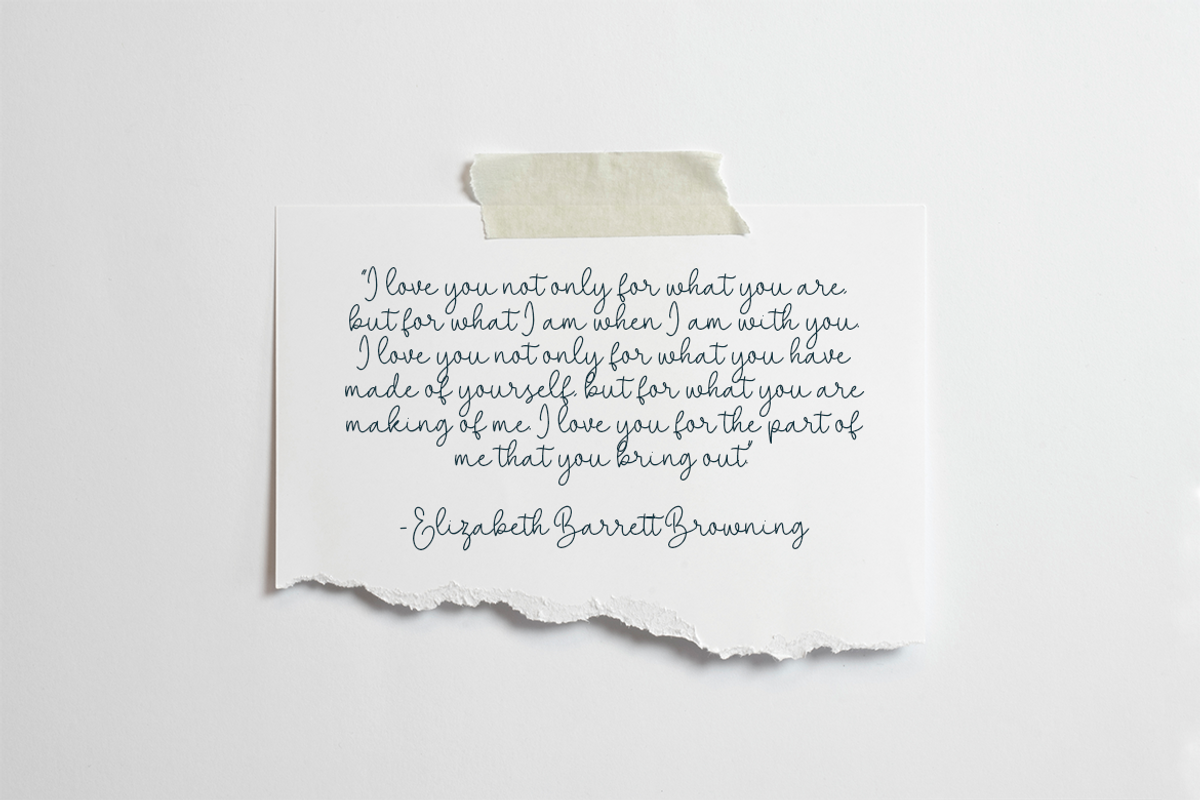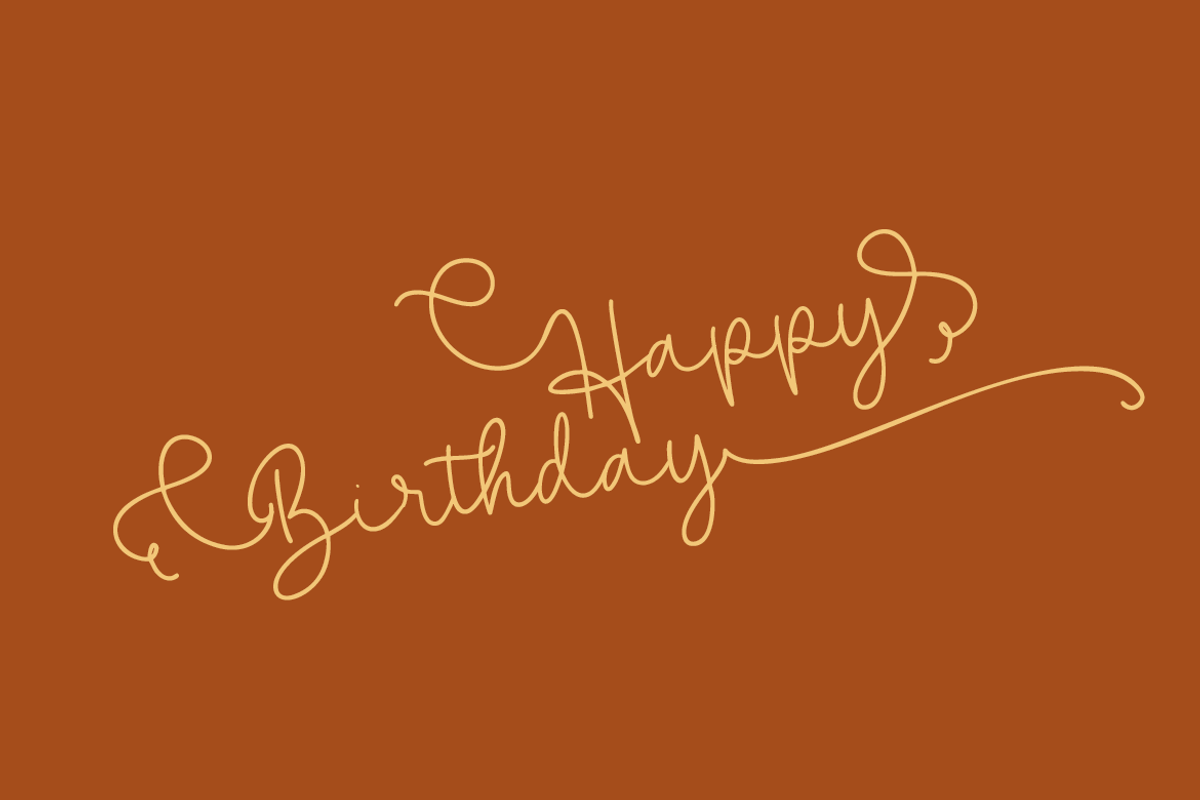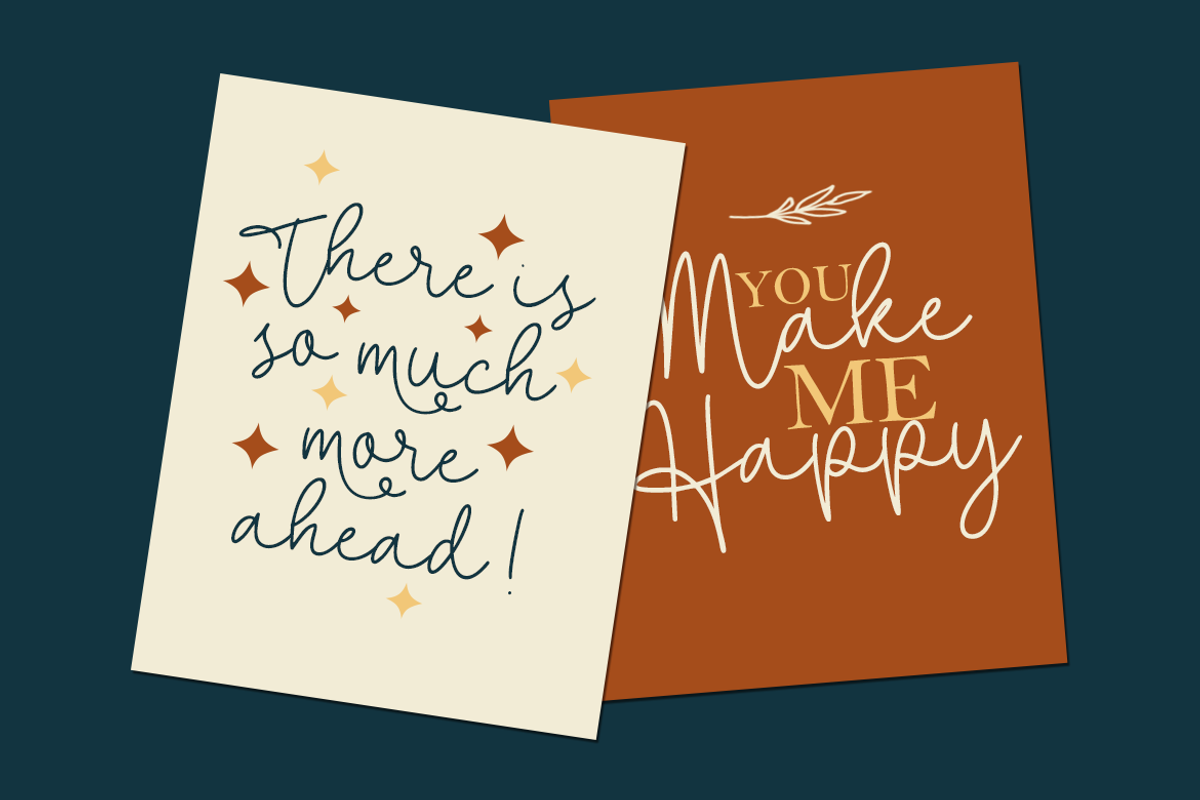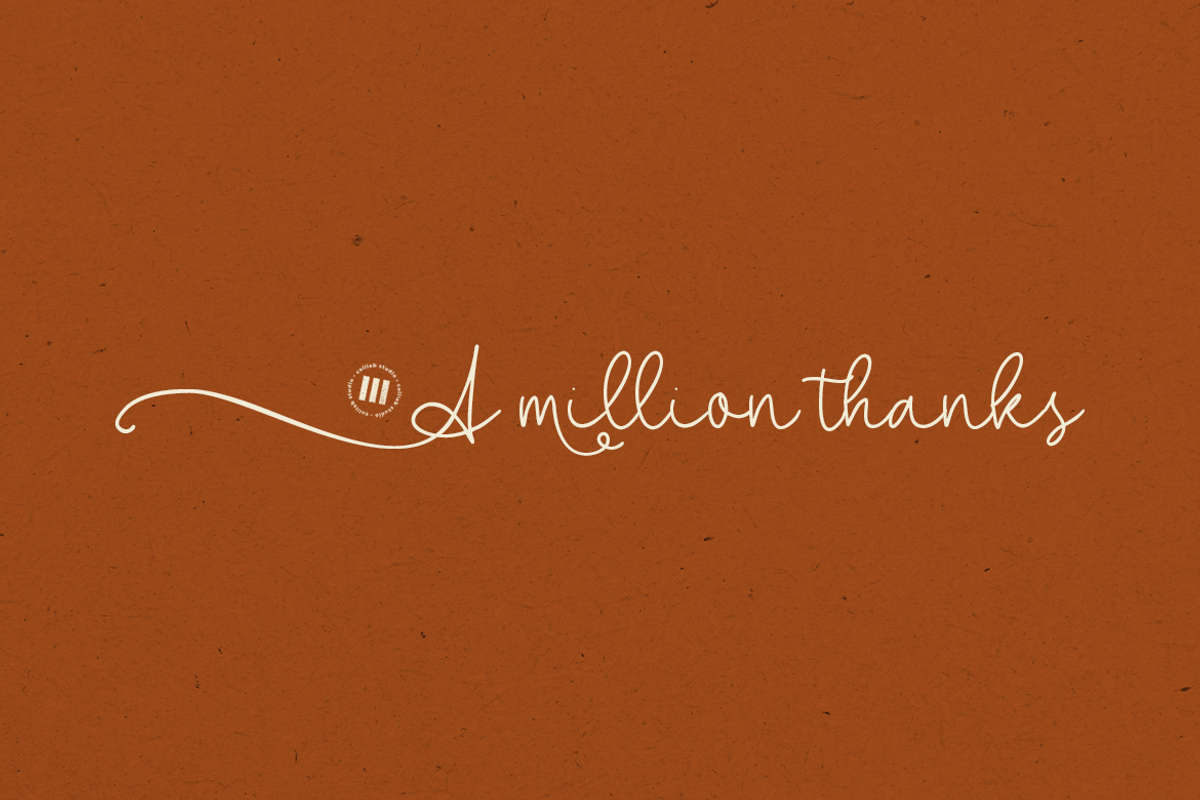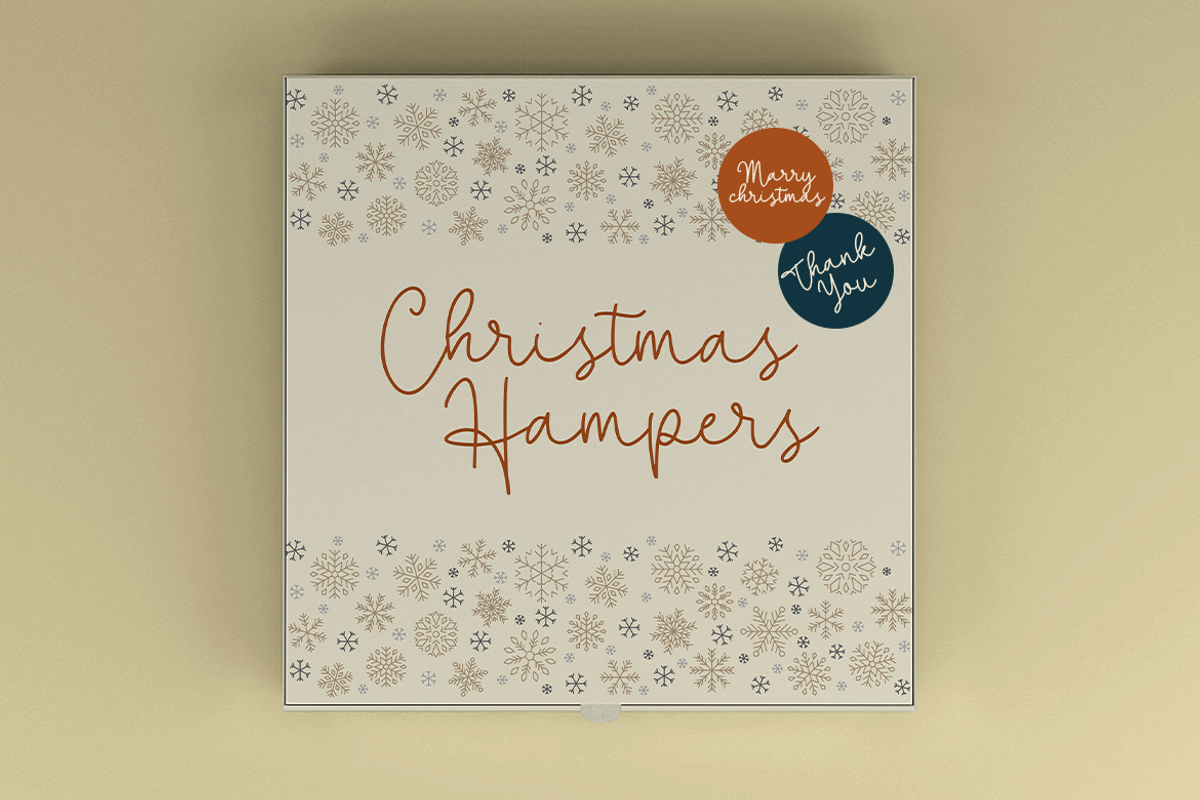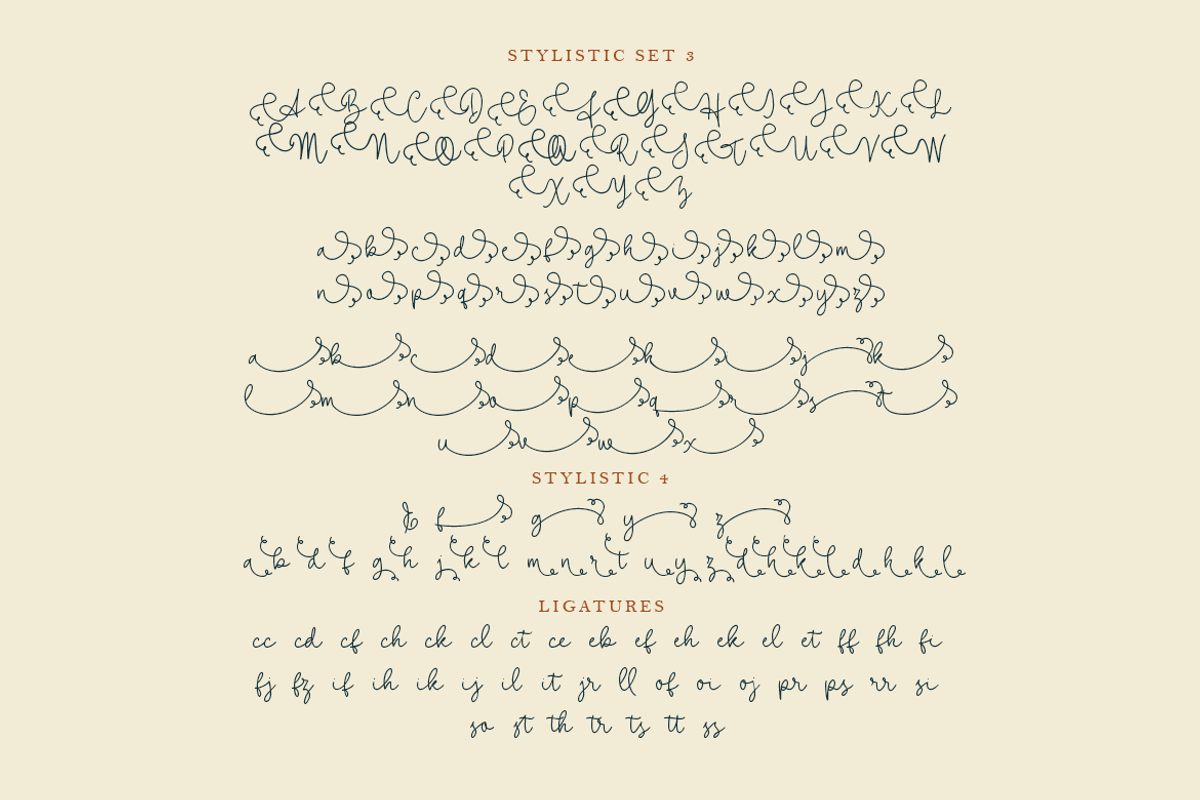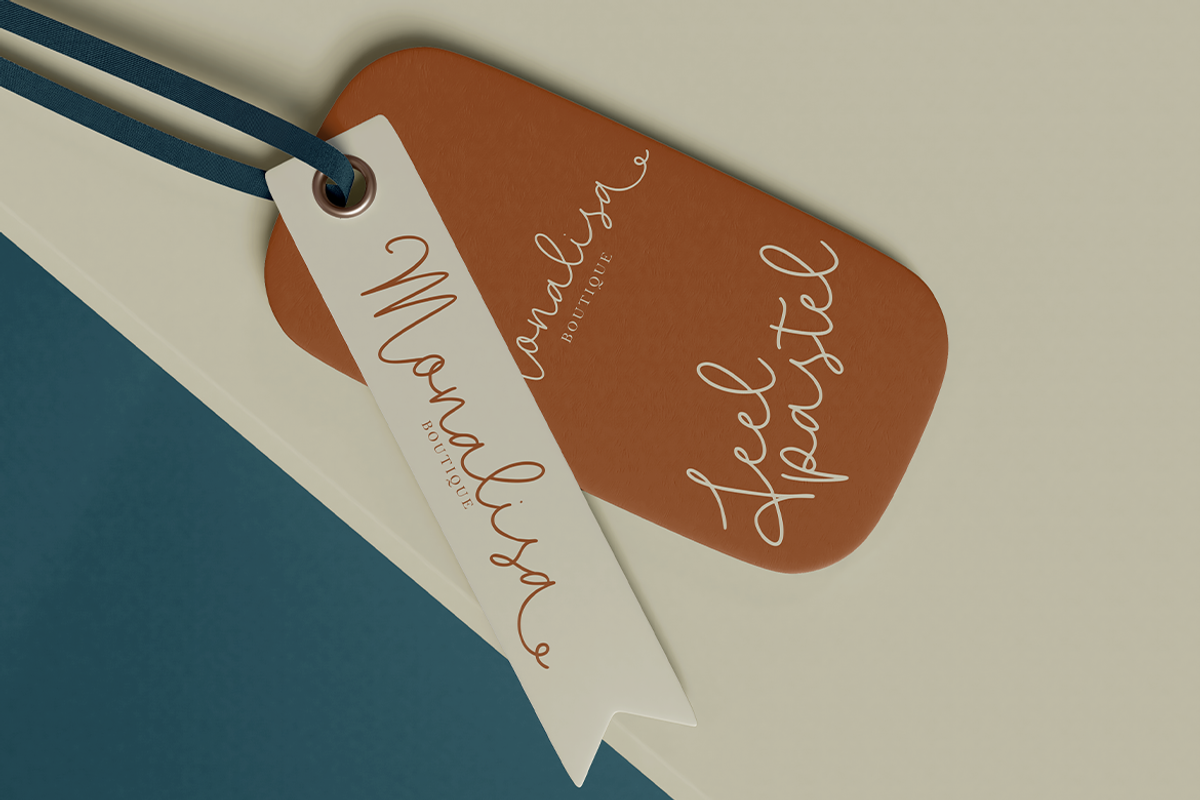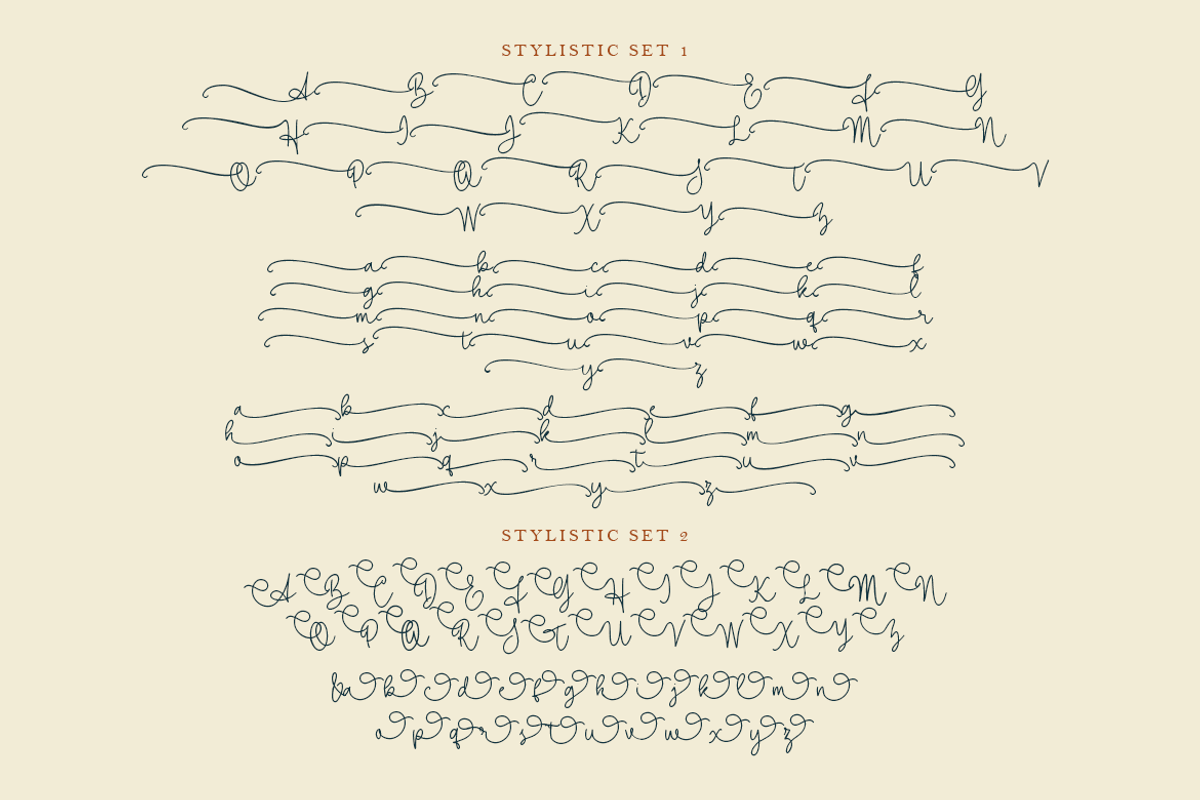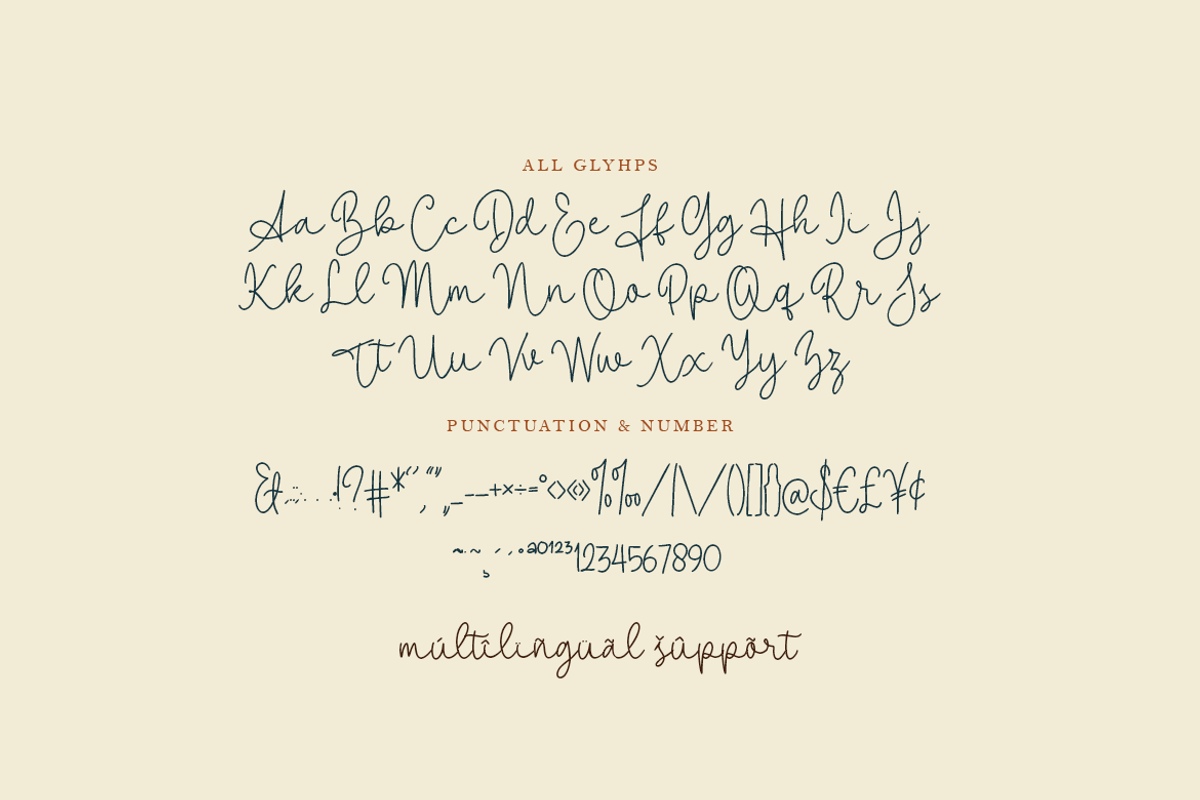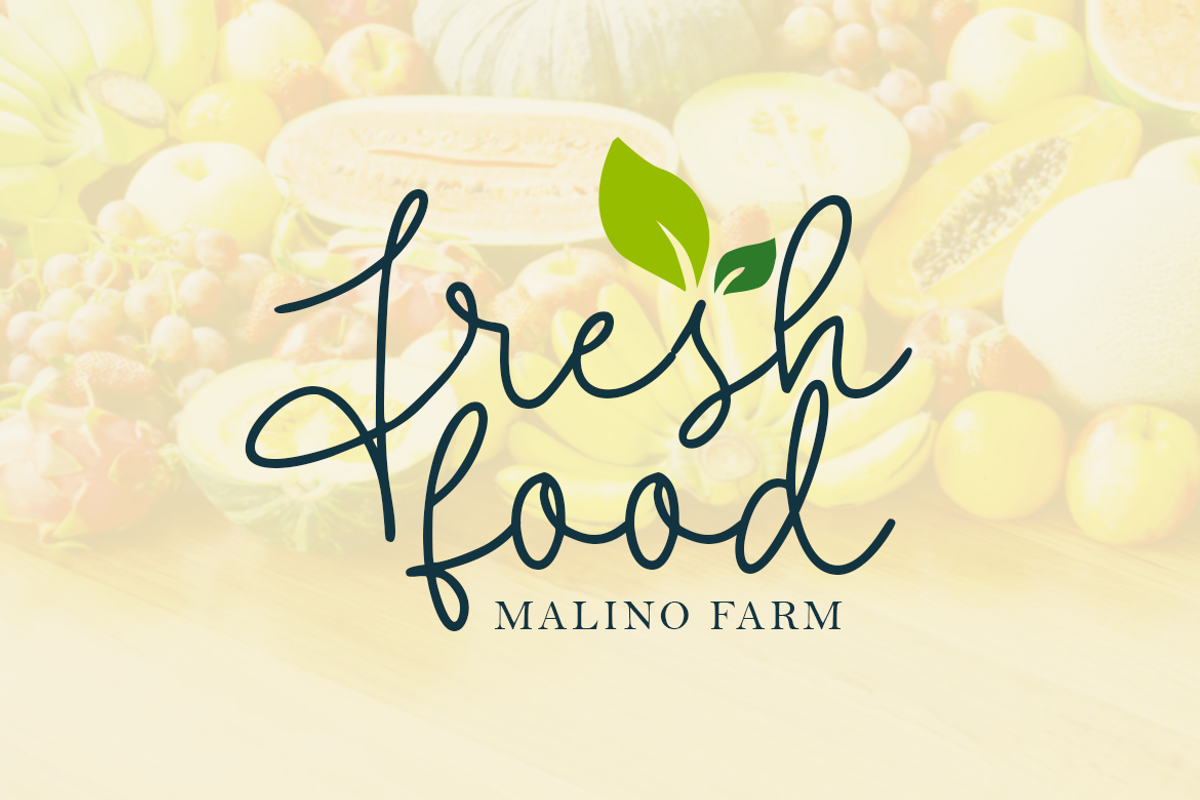
Shallylova | A Lovely Monoline Font
Shallylova is a lovely monoline font to use in your personal or commercial works. It comes with uppercase and lowercase letters, numbers, punctuation, alternates, swashes.
The connections in the letters can help to connect related words, which can help to create a more memorable phrase.
Your projects will stand out from the crowd. Shallylovat is perfect for branding or logo. Use it for Logotype, Stationery Design or Apparel Design. Use it for Social Media post to add interest to the posts with its unique character.
Shallylova is well-crafted font that can bring a warm and intimate touch of handmade typography to designs. If you are looking for an alternative font to handwritten style, then you will fall in love with this font as soon as you open it!
- 500 + Glyphs,
- 8 Sets stylistics alternates
- Swashes & Ligatures
- Ordinals
- Multilanguage Support ( 64 Languages )